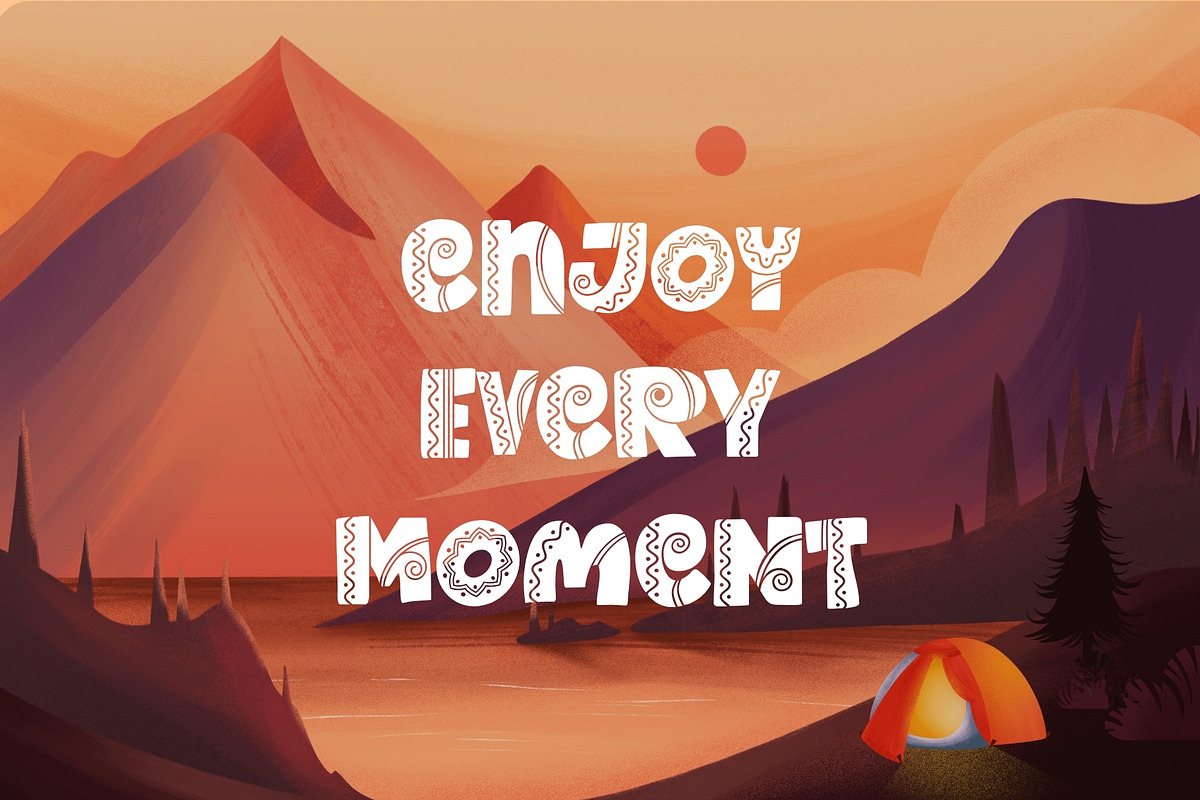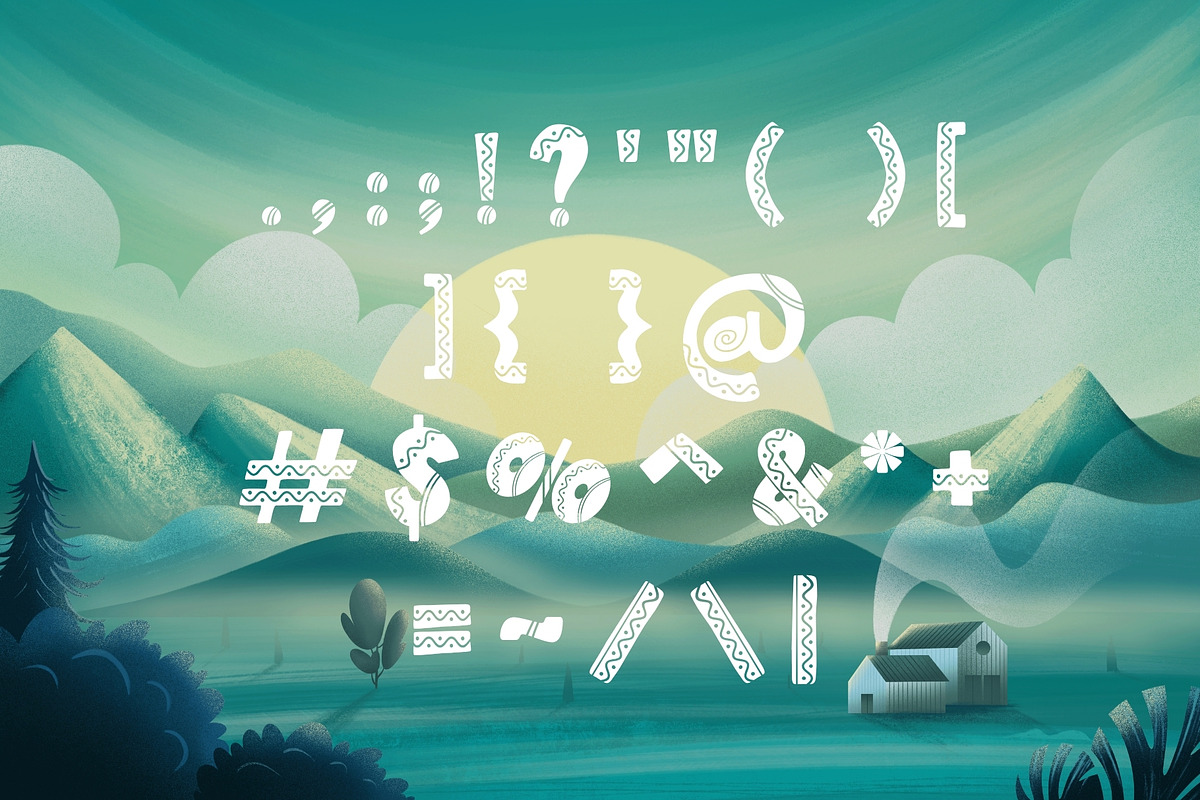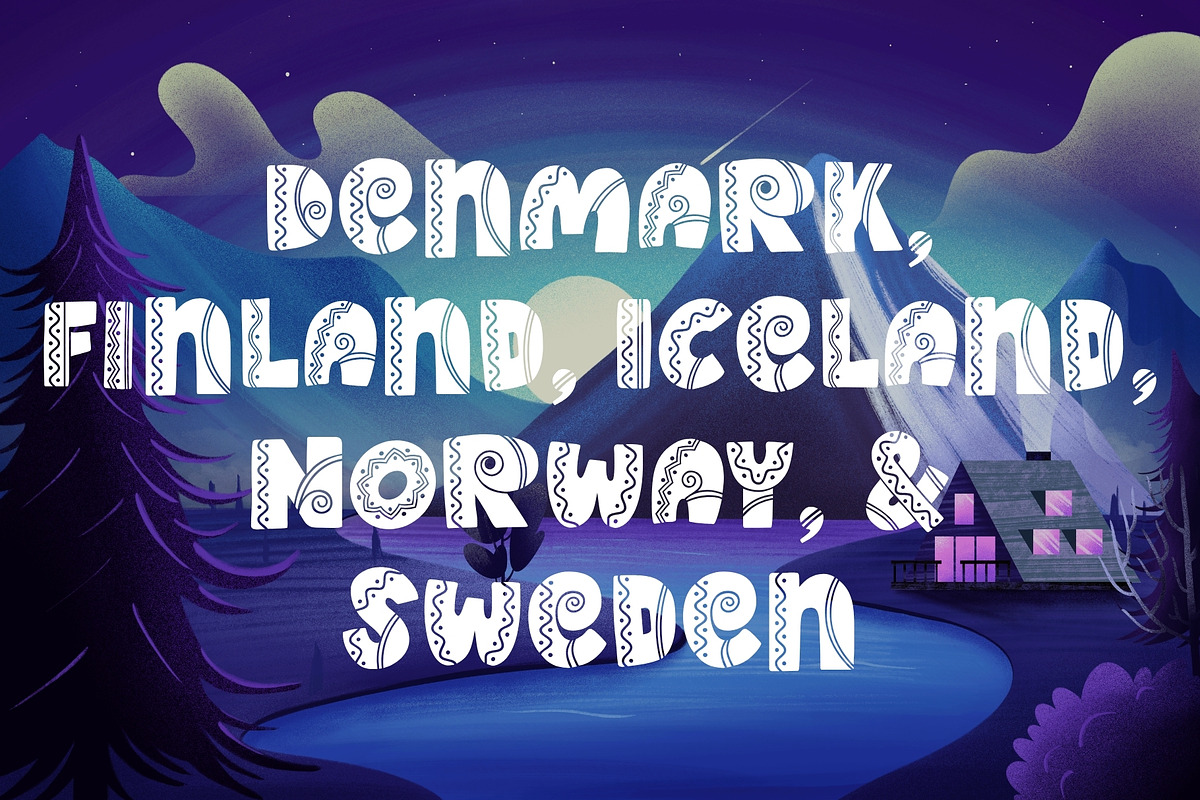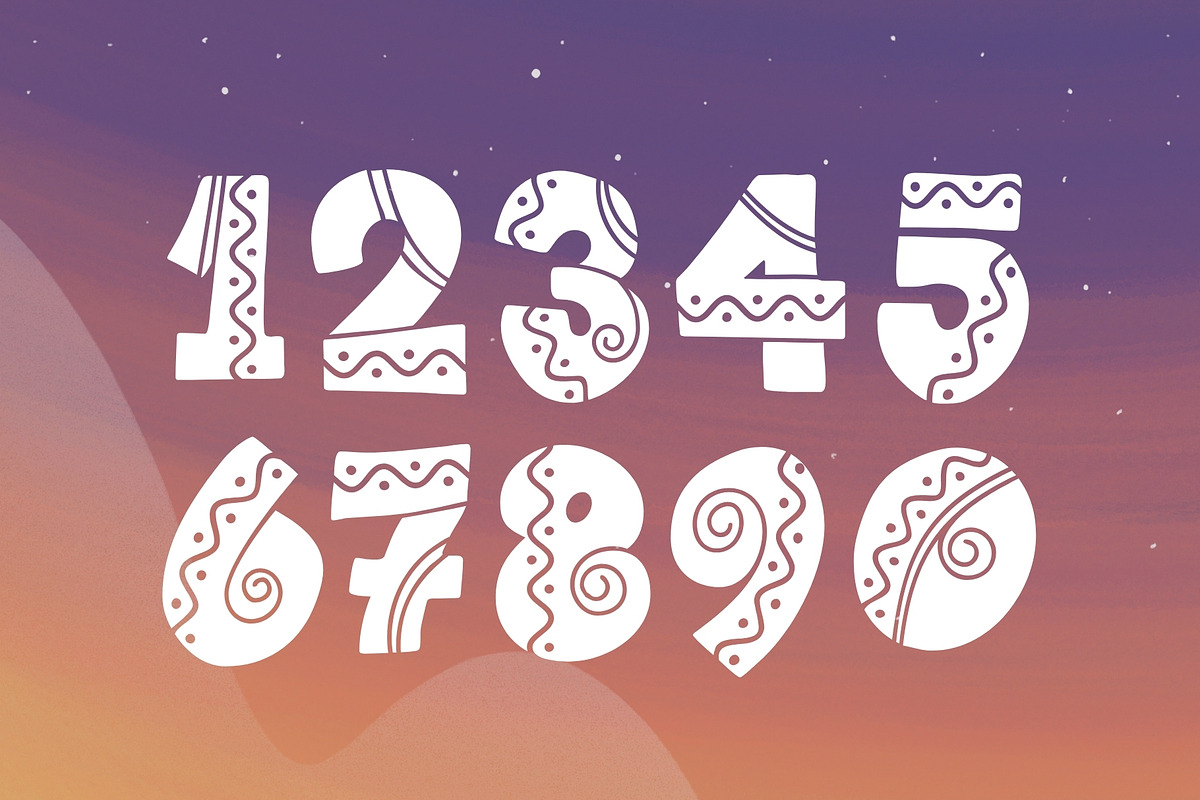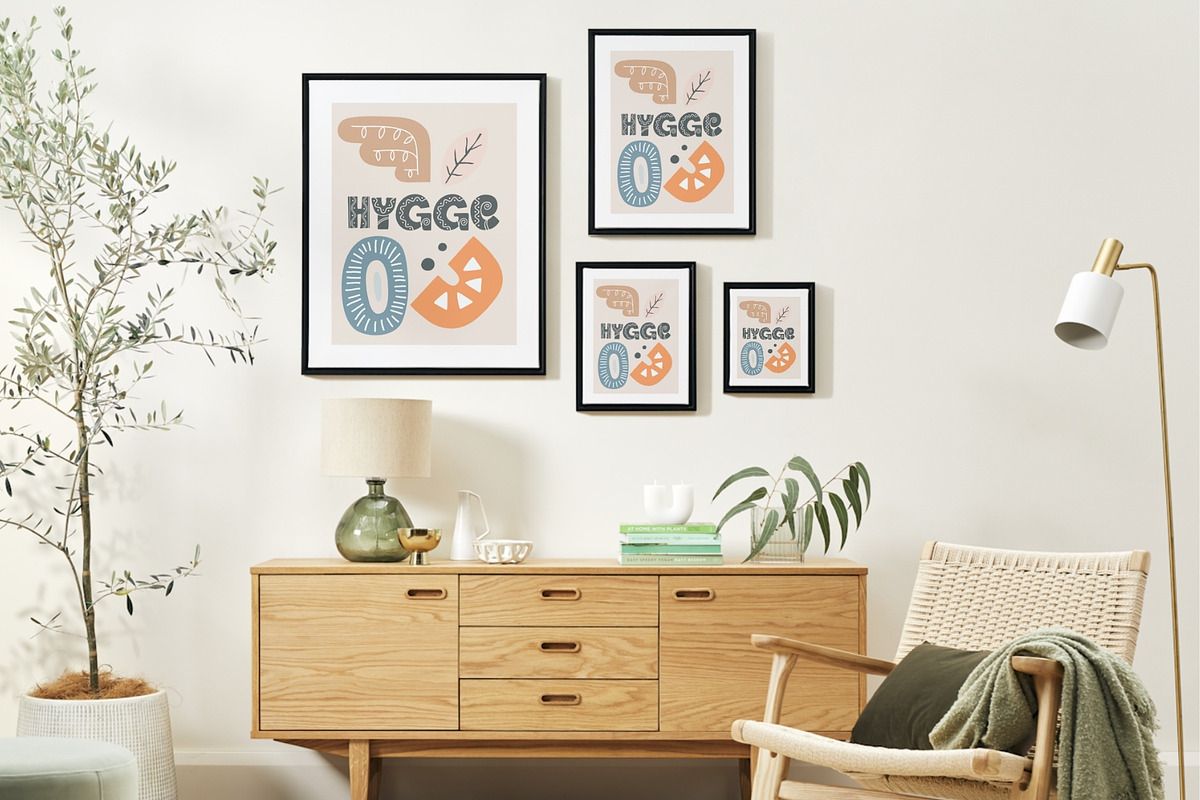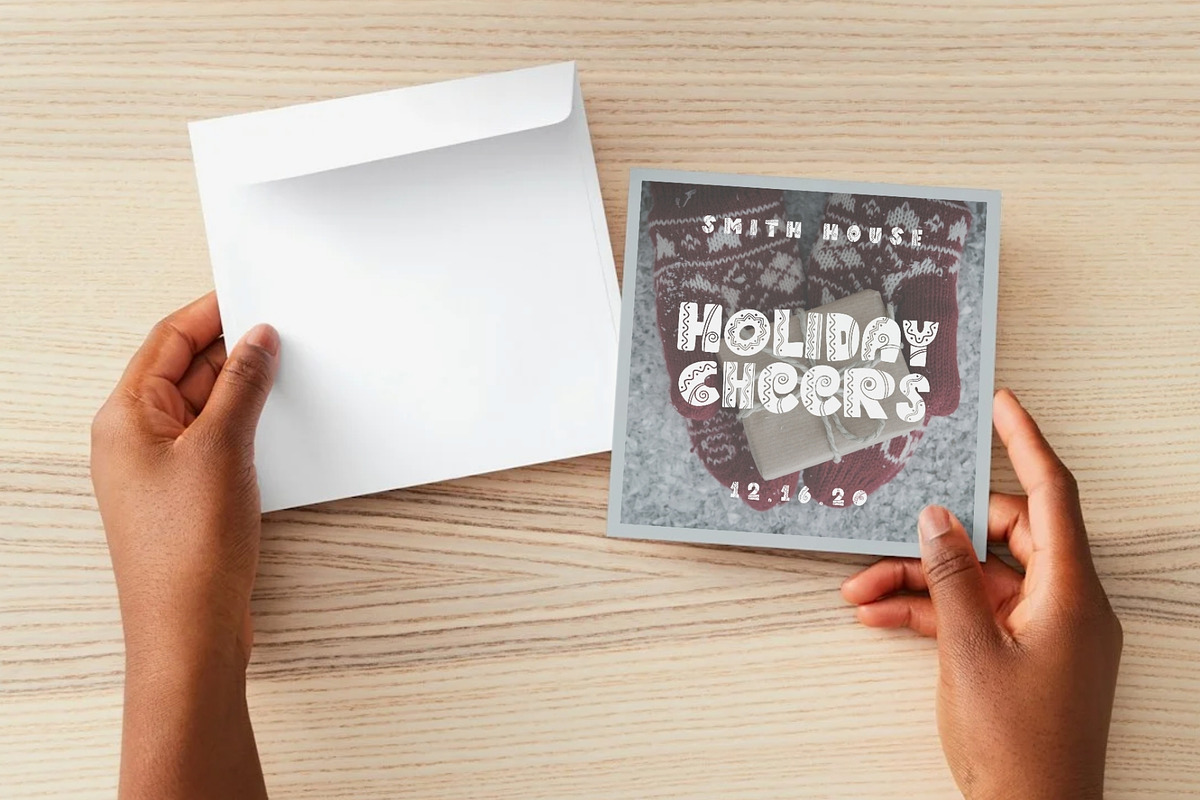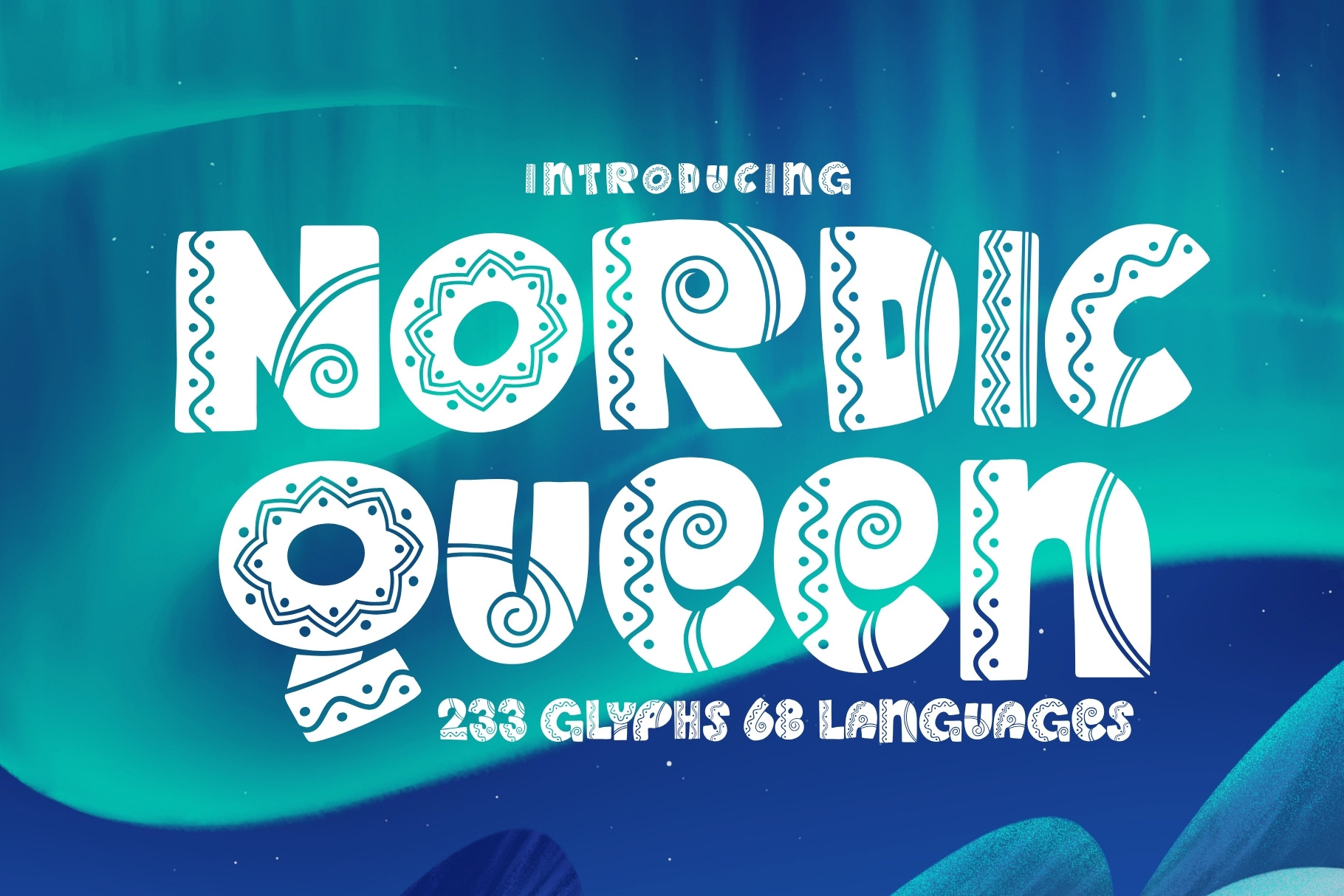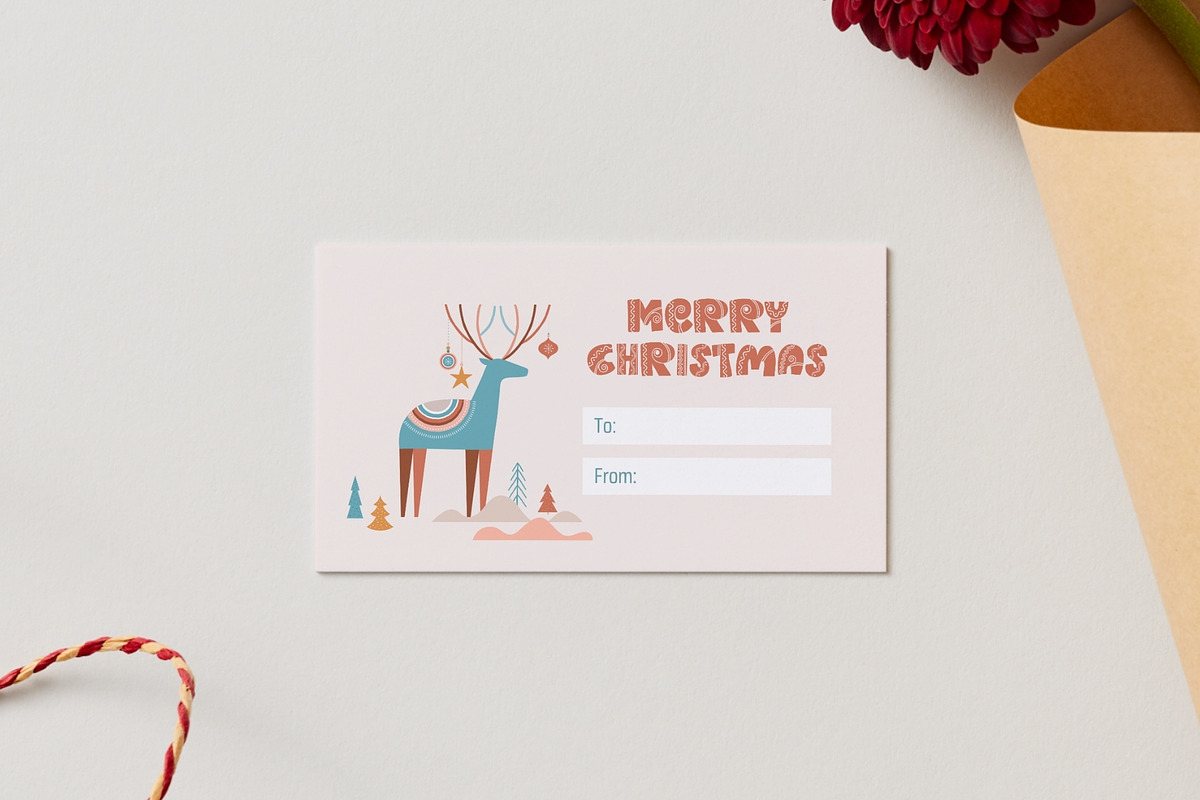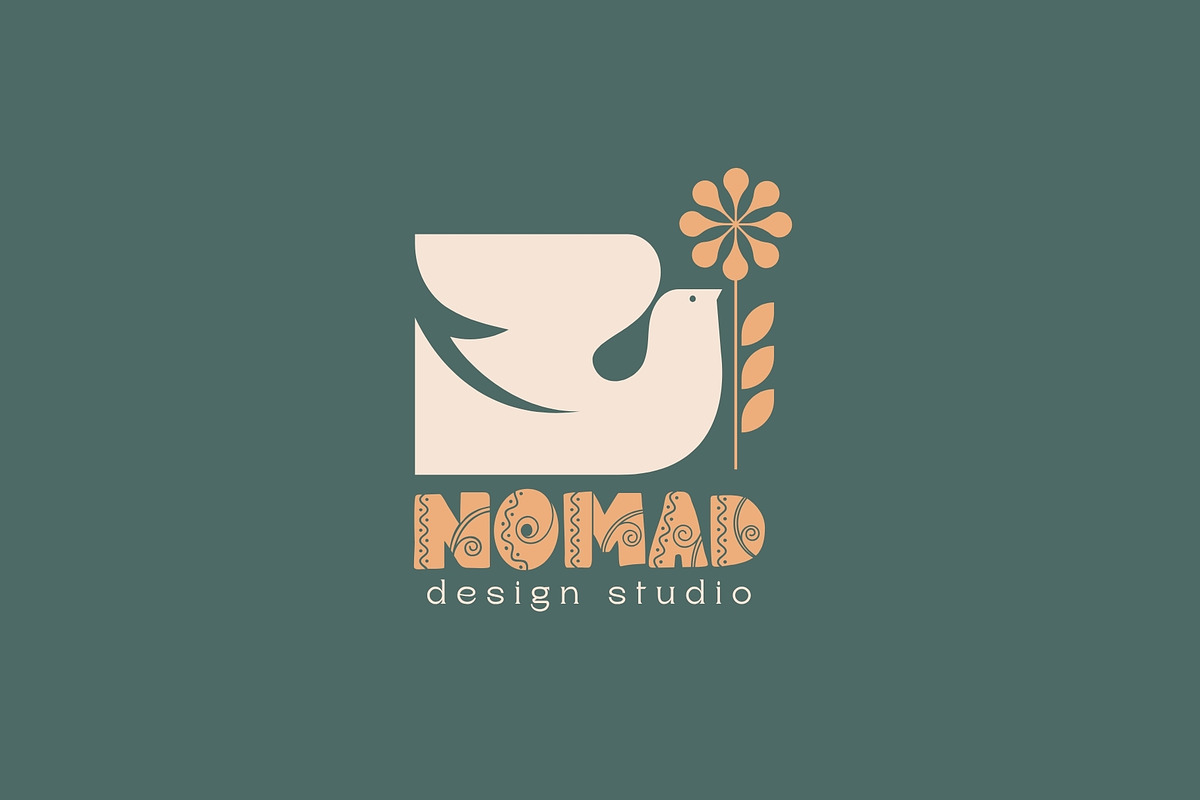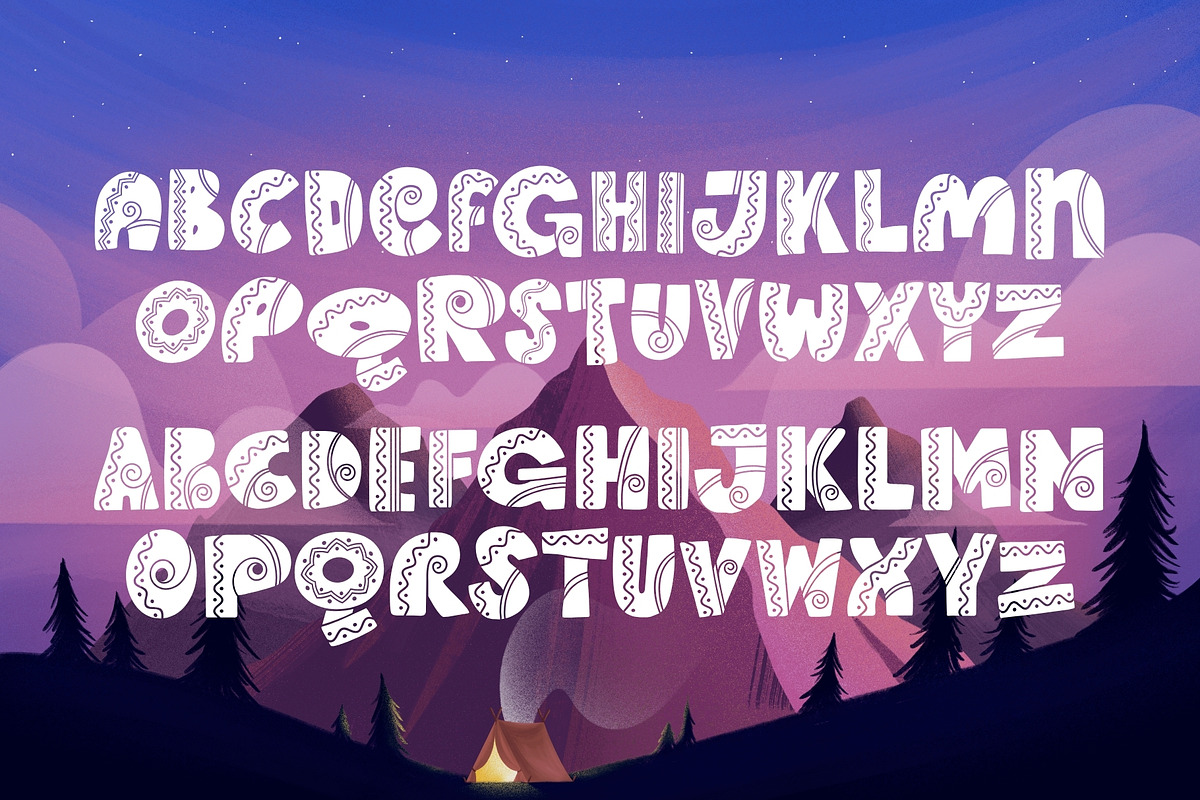
Nordic Queen – Scandinavian Font
Nordic Queen is a charming and whimsical typeface that captures the enchanting spirit of Nordic folklore and design. Filled with personality, this decorative display font blends playful shapes with the timeless essence of Nordic heritage, creating a look that feels both ancient and delightfully imaginative.
Each letter is adorned with quirky ornamental touches, giving Nordic Queen a fun and captivating presence that stands out in any creative project. Whether used on its own or paired with its delightful stylistic variations, this typeface brings a sense of magic, warmth, and Nordic charm to your work.
With nine unique decorative variations, Nordic Queen offers exceptional versatility. It’s a perfect choice for children’s projects, crafting endeavors, and creative designs that aim to spark joy, curiosity, and wonder. From festive themes to folklore-inspired artwork, this font makes every design feel lively, fun, and full of imaginative energy.
Ideal for:
- Logos & branding
- Crafting projects
- Invitations & greeting cards
- Stickers & labels
- Children’s books & educational materials
- Magazines & editorial layouts
- Holiday & Nordic-themed designs
Whether you're a designer, crafter, or storyteller, Nordic Queen adds a delightful touch of whimsy and Scandinavian magic to your creative world.